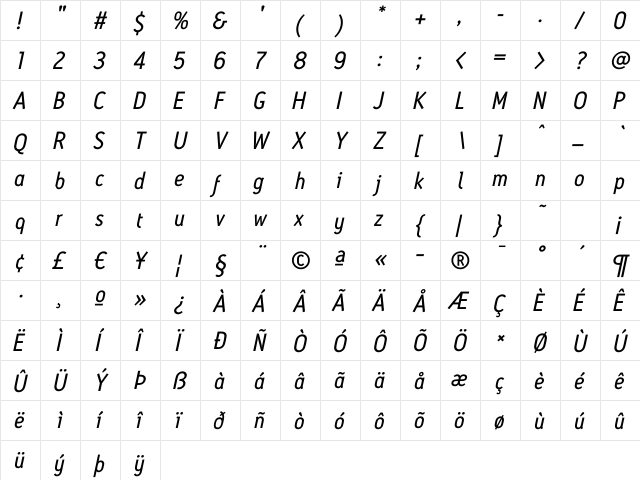
AntitledRegular Italic Regular
AntitledRegular Italic is a composed and adaptable typeface that performs quietly and consistently across a wide range of design contexts. The dynamic lean of this cut emphasises speed and emphasis in any layout.